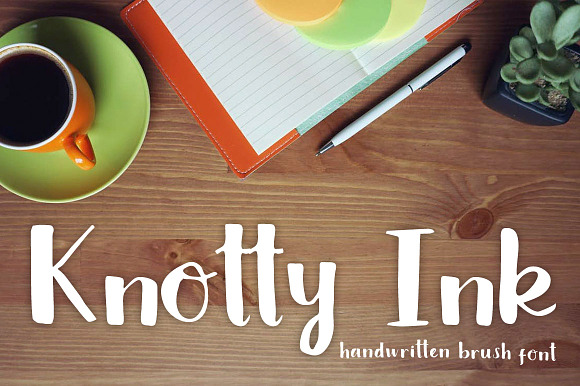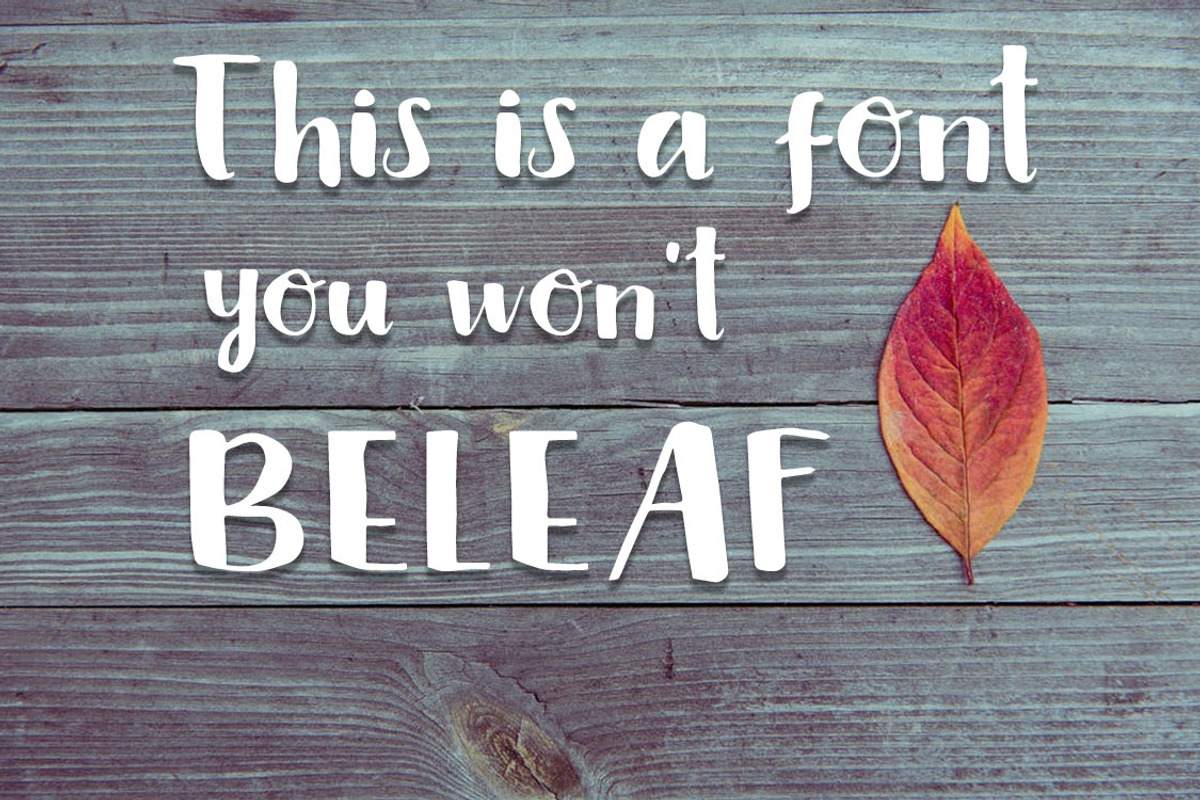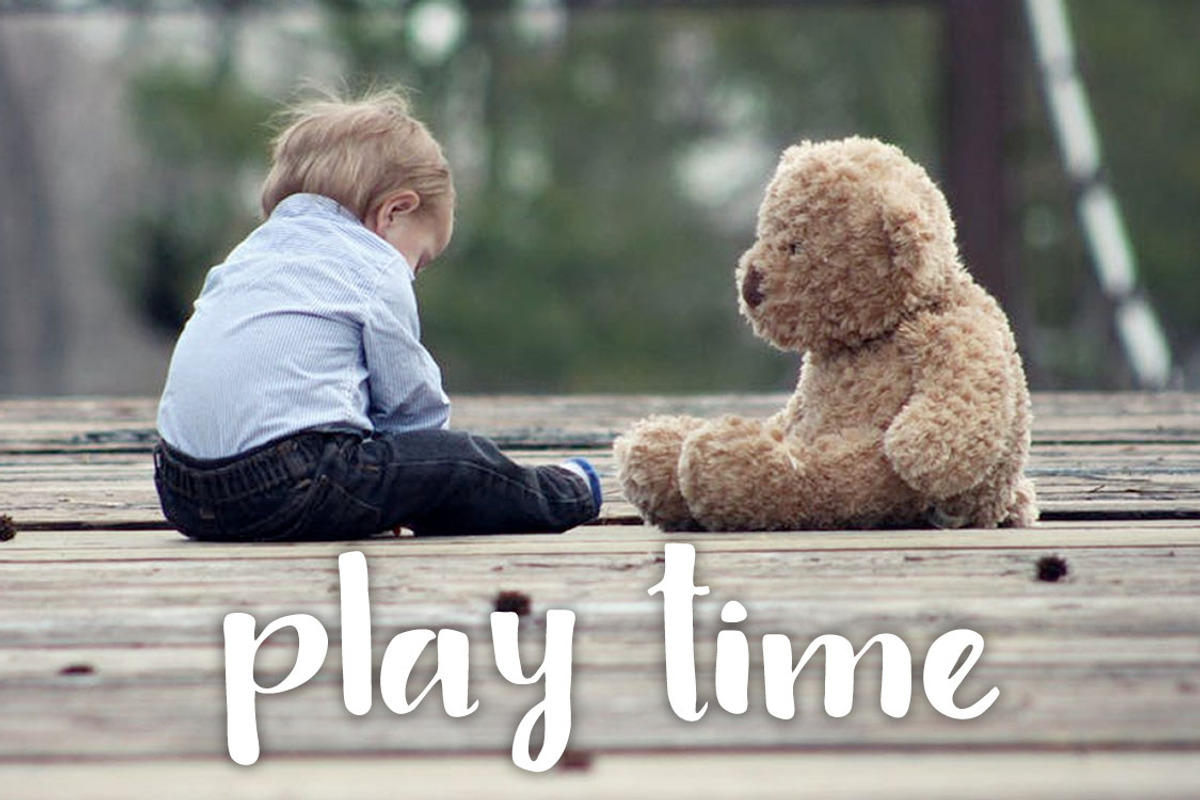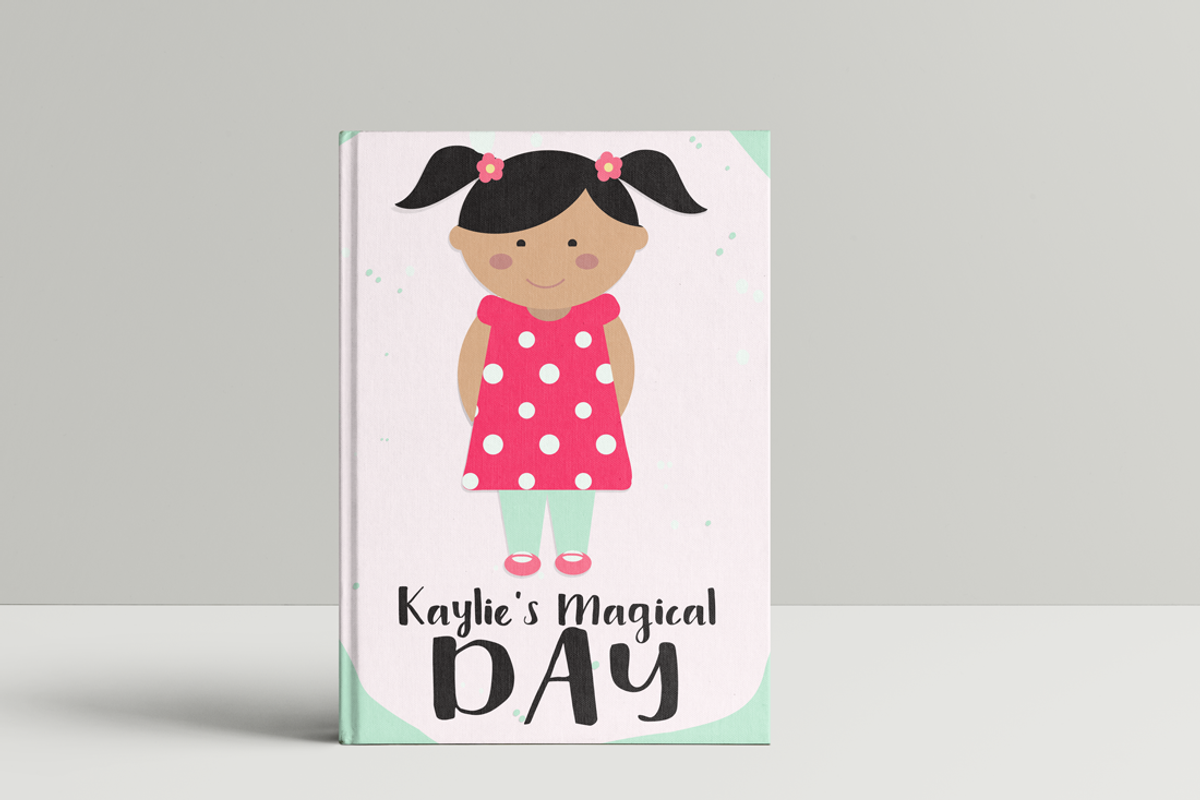
Knotty Ink Font
Knotty Ink is a font where each character and symbol were lovingly created by hand with a brush pen. Each letter was tweaked to give it a fun feel, with a lot of whimsy and warmth. This font would be fun for post cards, children's illustrations, and book covers.
Upper and Lowercase Letters